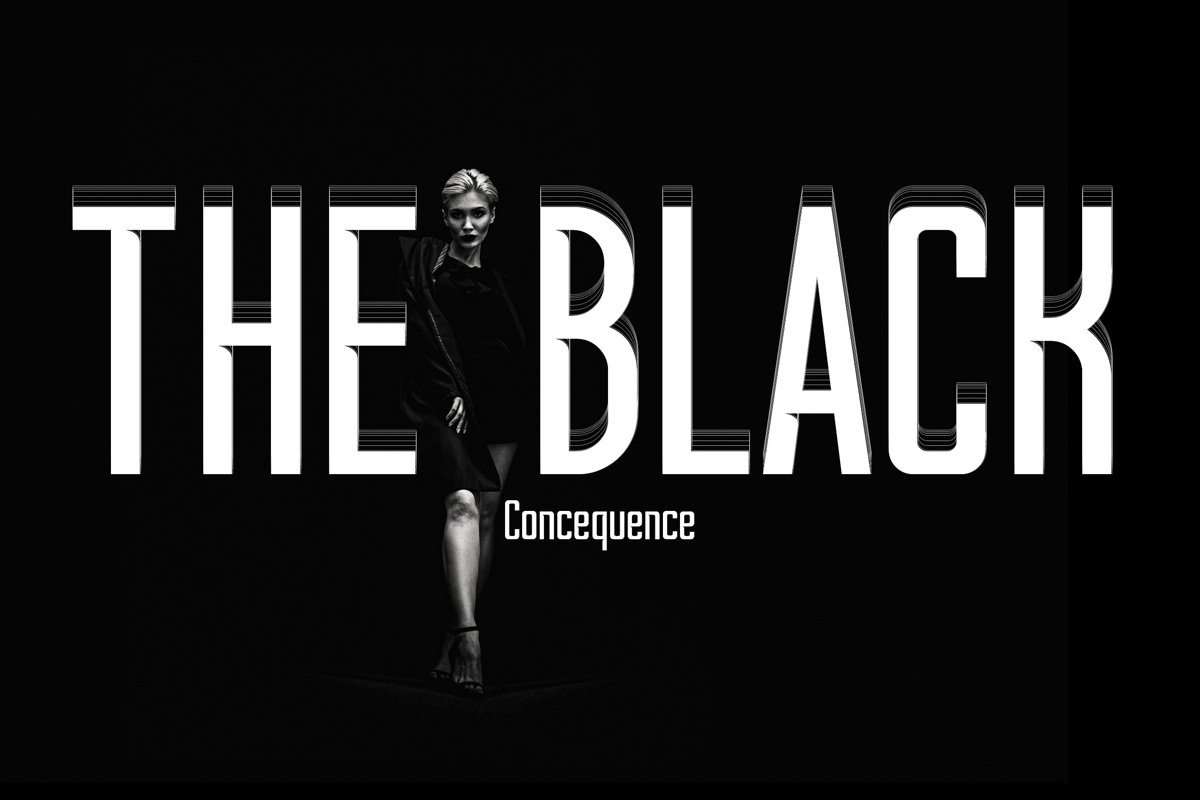
Davidas - Condensed Sans Serif
Davidas - Condensed Sans Serif font is perfect for your up coming projects. Such as logo branding, editorial design, stationery design, sport design, blog design, modern advertising design, card invitation, art quote, home decor, book/cover title, special events and any more.